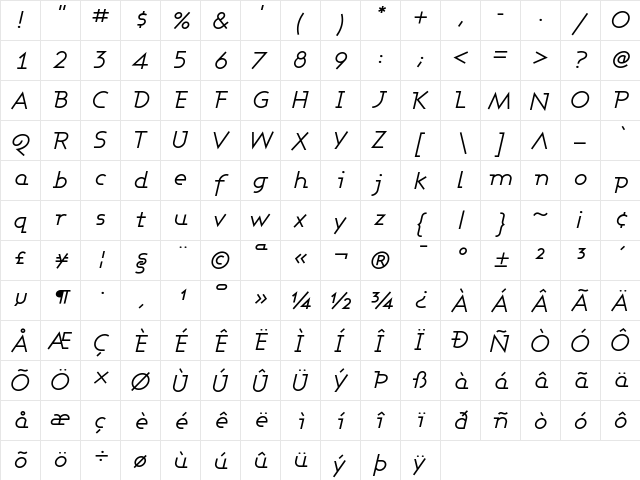
Ashby Book Regular
Design Context for Ashby Book Typeface
Ashby Book offers clean, dependable letterforms without strong stylistic allegiance, making it a practical choice for designers who need flexibility.
Pro Tip: Pair Ashby Book with a font of contrasting weight or personality to build a more expressive typographic hierarchy.